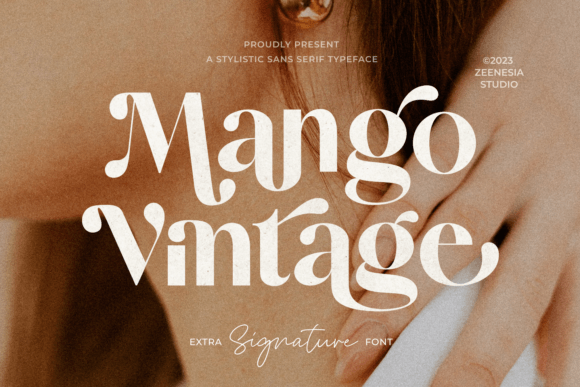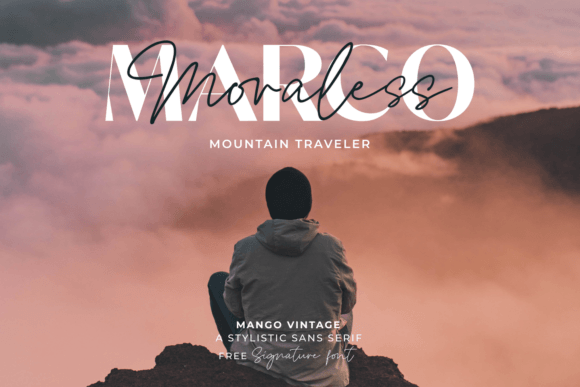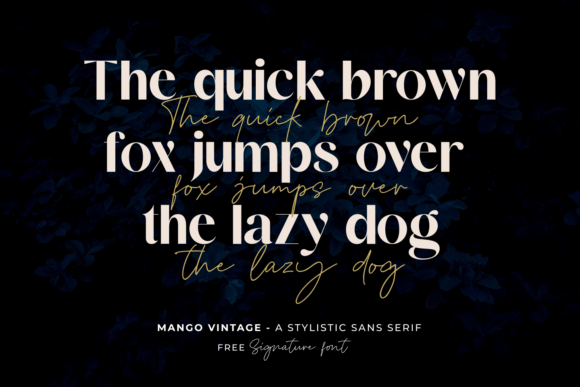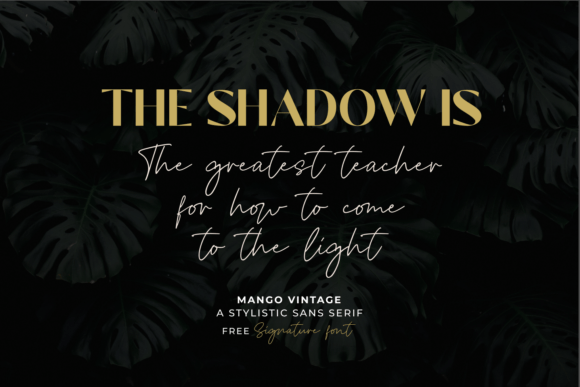
Mango Vintage Font: Elegant Sans Serif for Branding & Logo Design
About the Mango Vintage Font
Meet Mango Vintage Font, a stunning font that brings a touch of elegance and professionalism to any design. Vintage Mango is a modern and elegant sans-serif font. Vintage Mango is well-suited for advertising, branding, logotypes, packaging, titles, headlines, and editorial design.
Its elegant yet slightly playful character makes it ideal for headlines, branding projects requiring a touch of vintage sophistication, and packaging designs where a modern yet timeless feel is desired. It also works well for short-form editorial pieces and posters. However, its delicate details might become less legible in smaller sizes or within extended body text and should be avoided for UI elements requiring high readability.
Pairing Vintage Mango with a clean sans-serif like Helvetica Neue for body text creates a balanced and professional look. For a more playful approach, consider pairing it with a rounded geometric sans-serif. Alternatively, a classic serif like Garamond could add a touch of traditional elegance, contrasting nicely with Vintage Mango’s modern lines.
Vintage Mango exudes a sophisticated, yet approachable personality, lending itself well to brands aiming for a timeless yet contemporary image, particularly within the fashion, food, or lifestyle sectors. Avoid using it for projects requiring a highly minimalist or extremely bold aesthetic.
Mango Vintage Font Usage Examples
Mango Vintage Font Example